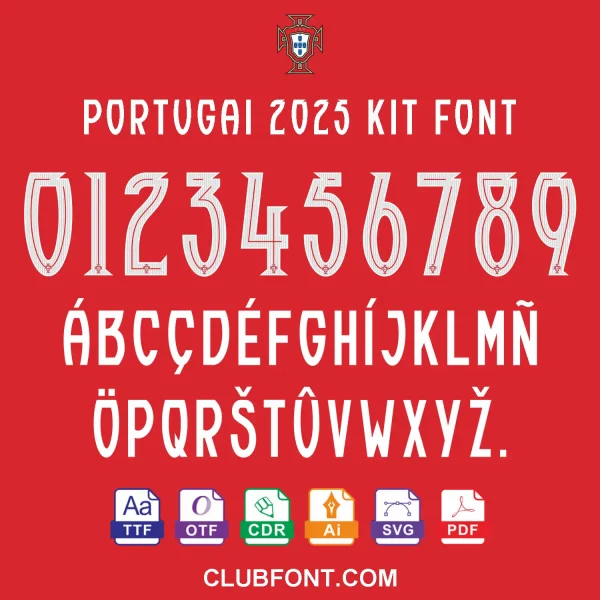
Portugal 2025 Font – The Official-Style Puma Kit Typeface
Bring the 2025 Portugal home and away kits to your design table. This Portugal 2025 font recreates the Puma lettering used on the national team’s jersey name & number sets — bold, rounded, and built for sports graphics.
- Uppercase A–Z, numerals 0–9, and punctuation aligned to match the 2025 Portugal match kit proportions.